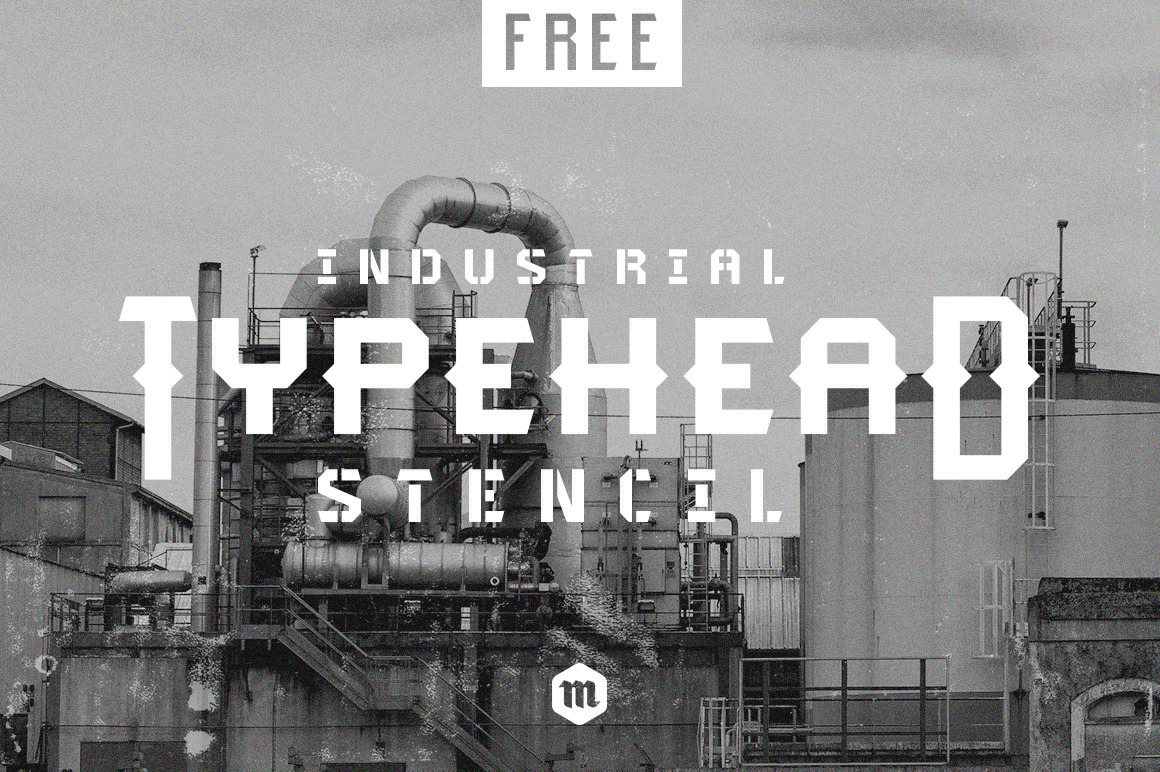
Typehead Industrial Stencil | Font
This industrial typeface is perfect for manufacturing companies, warehouse signage, construction brands, military equipment, shipping containers, factory graphics, heavy machinery, safety signage, and robust industrial design applications.
What makes this font exciting is its industrial strength combined with stencil functionality, offering designers a utilitarian typeface that captures the essence of heavy manufacturing while delivering military-grade durability and factory-tested sophistication.
The Typehead Industrial Stencil font family includes light, regular, medium, bold, heavy, and military variations, providing complete industrial design solutions for creating robust manufacturing visual identities.
Whether you're developing industrial manufacturing brands or crafting heavy-duty design experiences, Typehead Industrial Stencil | Font Free Download brings exceptional factory atmosphere and industrial authenticity to every application. This utilitarian typeface combines traditional stencil typography with contemporary industrial design, creating letterforms that inspire reliability and celebrate manufacturing excellence. The font's industrial construction and factory-ready details make it perfect for brands seeking immediate manufacturing recognition.
Typehead Industrial Stencil | Font features carefully engineered industrial styling with authentic manufacturing character that conveys genuine factory expertise. Each character has been designed with stencil functionality and heavy-duty proportions that enhance the robust aesthetic. The font's industrial qualities make it particularly effective for manufacturing companies and military applications.
Professional designers choose Typehead Industrial Stencil | Font for projects requiring authentic industrial credibility and manufacturing atmosphere. Its factory heritage makes it exceptionally well-suited for construction companies, military contractors, and industrial lifestyle brands. The font's versatile stencil variations allow designers to control the industrial intensity, from subtle manufacturing elegance to full factory celebration.
The complete Typehead Industrial Stencil | Font package offers extensive industrial ornaments and manufacturing decorative elements that enhance the robust aesthetic. Advanced stencil features allow designers to create complex industrial effects with multiple factory-inspired options. This comprehensive manufacturing toolkit ensures designers have everything needed to create authentic industrial communications that celebrate the enduring strength of manufacturing excellence and military-grade industrial precision.